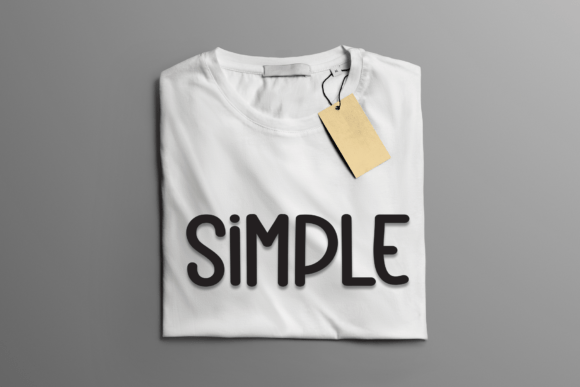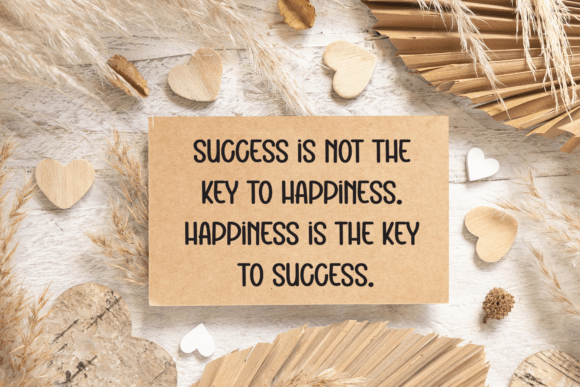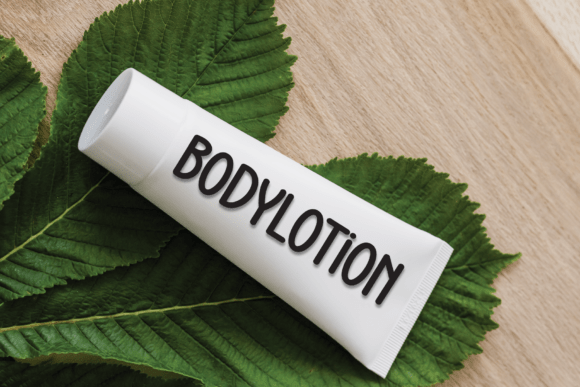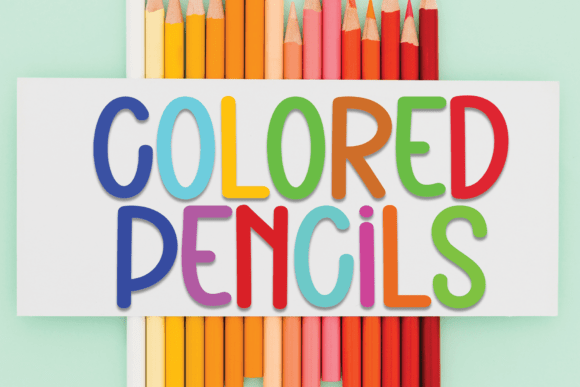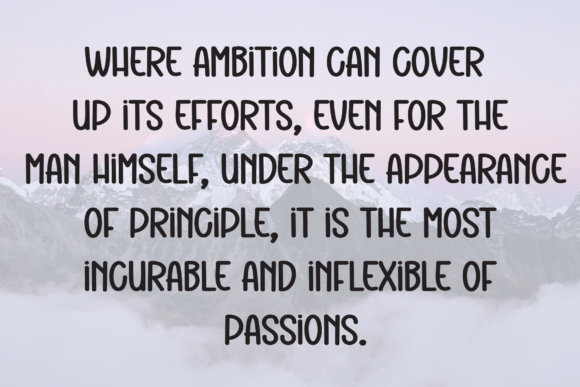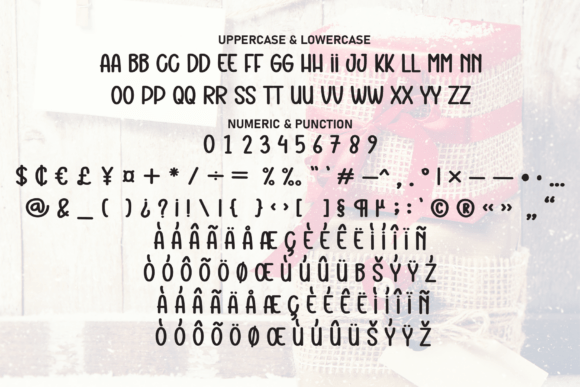
Introduction to Present Farmhouse Font
As designers, we’ve all been there – staring at a blank canvas, searching for that perfect font to bring our creative project to life. It’s the moment when a font’s personality can make or break the entire design. And that’s where Present Farmhouse Font comes in – a display handwritten font that bursts with charm and character.
With its bold, eye-catching strokes and natural flow, Present Farmhouse Font is the perfect design resource for anyone looking to add a personal touch to their work. Whether you’re crafting a heartfelt quote, branding a creative product, or creating social media graphics, this font brings authenticity and flair to your design. And the best part? It’s available for a free download, making it an accessible high-quality design element for designers of all levels.
Key Features of Present Farmhouse Font
- High-quality, rustic font perfect for creative projects and design resources.
- Unique, hand-drawn design with a transparent background, ideal for overlaying on images or graphics.
- Perfect for use in design projects, such as wedding invitations, farm-themed decor, and vintage-inspired graphics.
Honest Review: Present Farmhouse Font
I recently stumbled upon the Present Farmhouse Font, and I must say it’s been a game-changer for my creative projects. This charming font has become an instant favorite among designers, and for good reason.
- ✨ High-quality design: The Present Farmhouse Font boasts beautiful, intricate details that bring a touch of elegance to any project.
- ✨ Versatility: This font is perfect for a wide range of creative projects, from wedding invitations to branding materials.
While the Present Farmhouse Font excels in many areas, there are a few limitations to keep in mind:
- ⚠️ Limited character set: Unfortunately, this font only comes with a basic character set, which may not be ideal for designers who need a wider range of characters.
- ⚠️ Transparent background: Be cautious when using this font with transparent backgrounds, as the intricate details may get lost in the background.
Overall, I’m thoroughly impressed with the Present Farmhouse Font. Its high-quality design, versatility, and free download make it an excellent addition to any designer’s toolkit. While it has its limitations, I believe the benefits far outweigh the drawbacks.
Present Farmhouse Font
Present Farmhouse Font is a high-quality design resource that can add a touch of elegance to your creative project. To get the most out of it, use it in combination with other design elements, such as images and graphics. You can also experiment with different font sizes and styles to create a unique look.
Present Farmhouse Font is perfect for designing wedding invitations, menus, and other event materials. It’s also great for creating social media graphics, blog posts, and other online content. With its free download and transparent background, you can use it in a variety of creative projects.